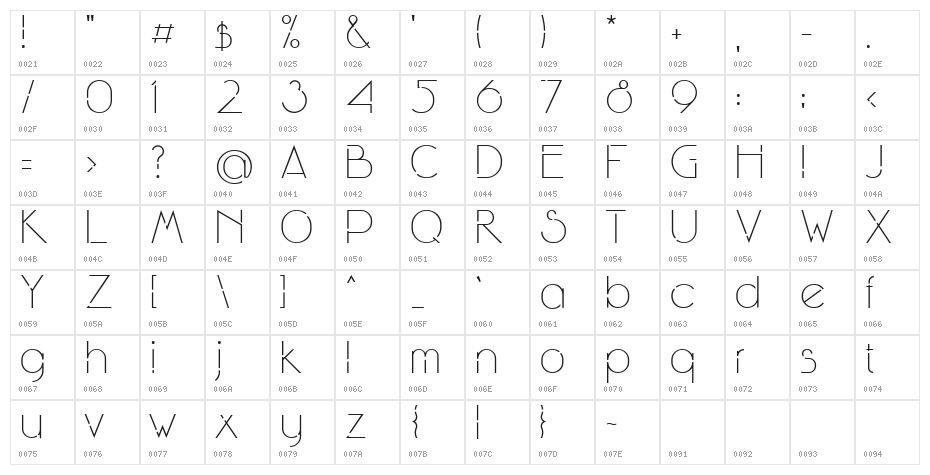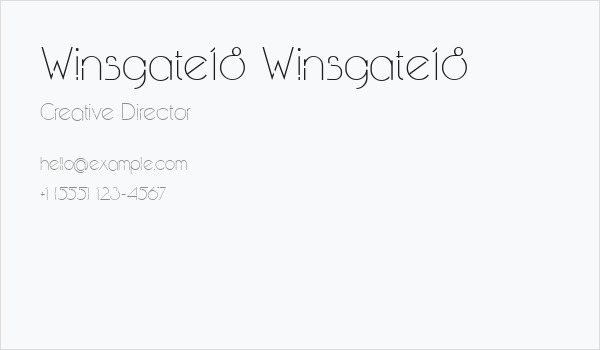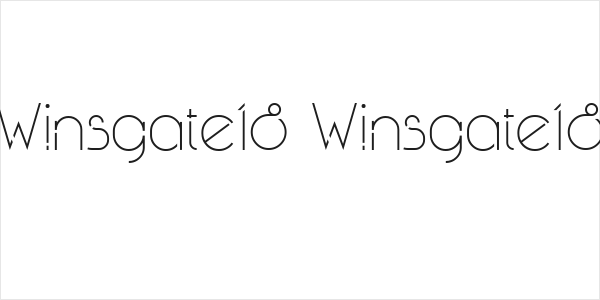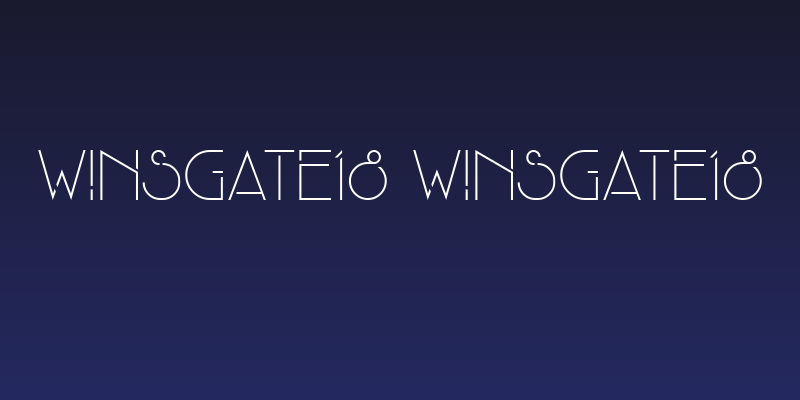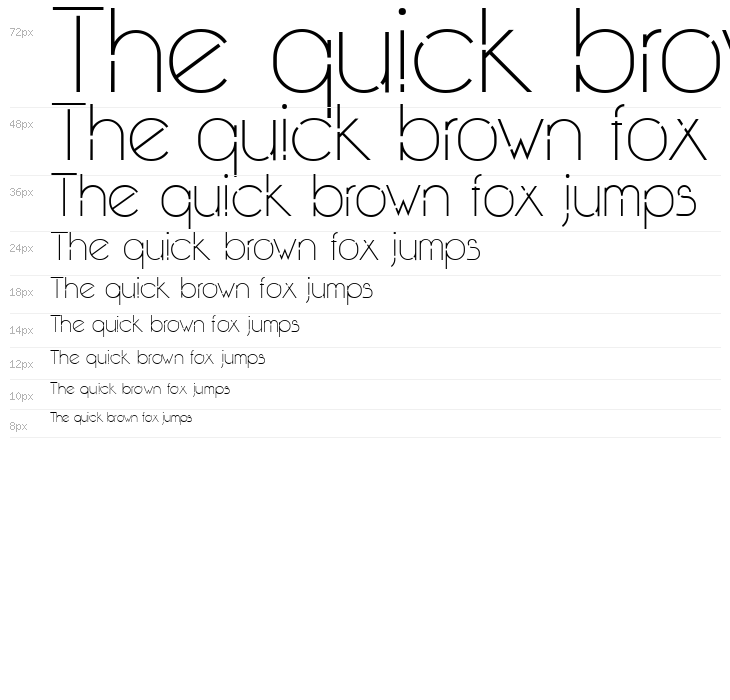
Winsgate18 Font
Winsgate18 Description
This font features a modern and geometric design with clean, straight lines and a minimalist aesthetic. The uppercase letters are characterized by their uniform height and width, creating a balanced and harmonious appearance. The lowercase letters maintain the geometric style, with rounded edges that add a touch of softness to the overall look. The numerals are consistent with the font's sleek design, offering a clear and legible appearance. Special characters are included, maintaining the same geometric and minimalist style. This font is ideal for projects that require a contemporary and sophisticated touch.
| Proposed Projects | Ideal for branding, logos, headlines, and modern web design. |